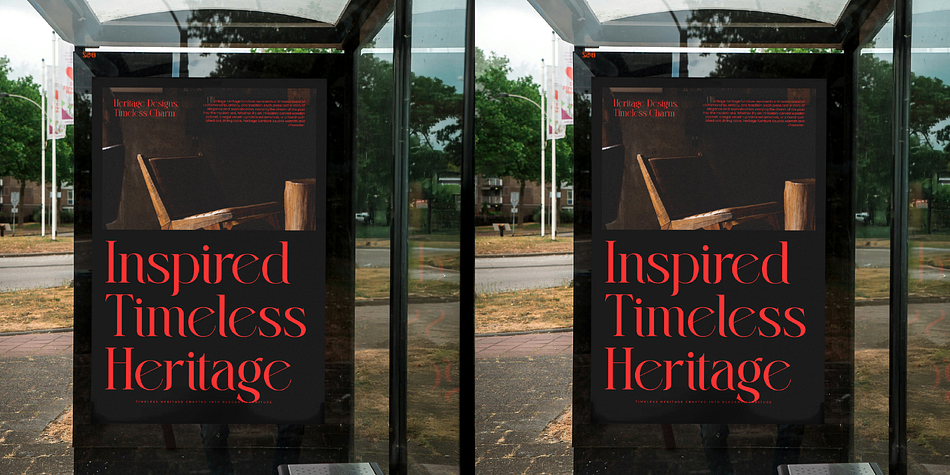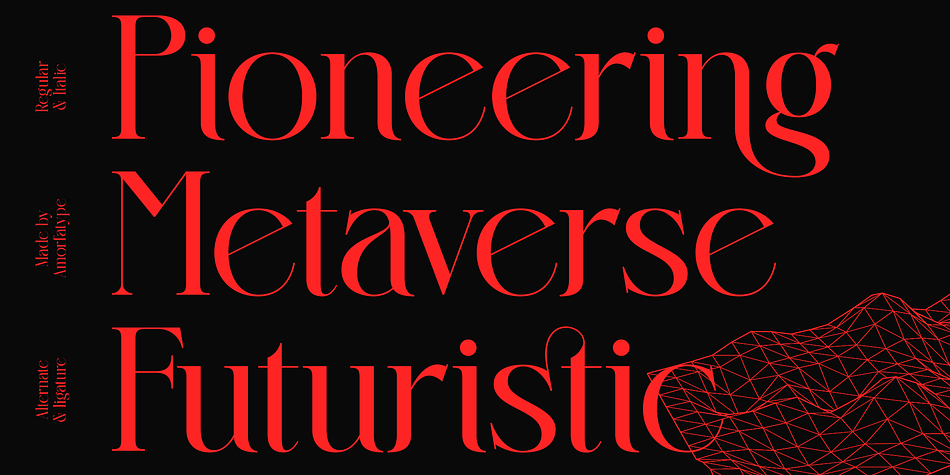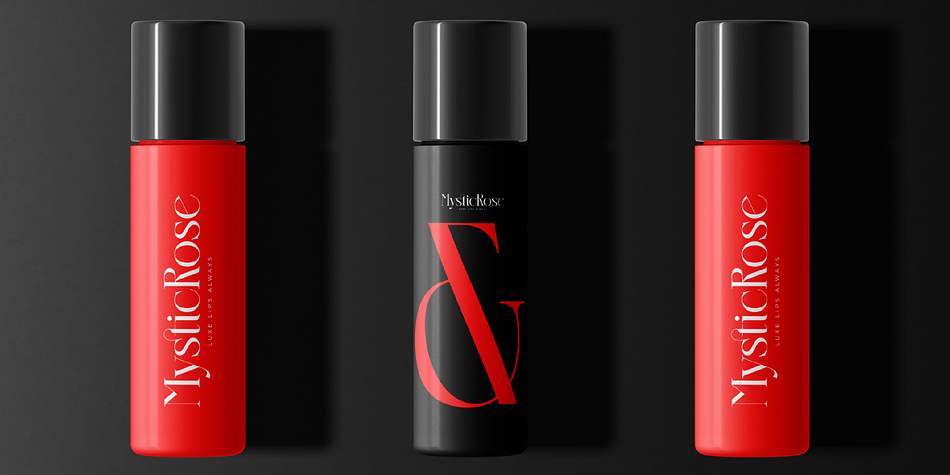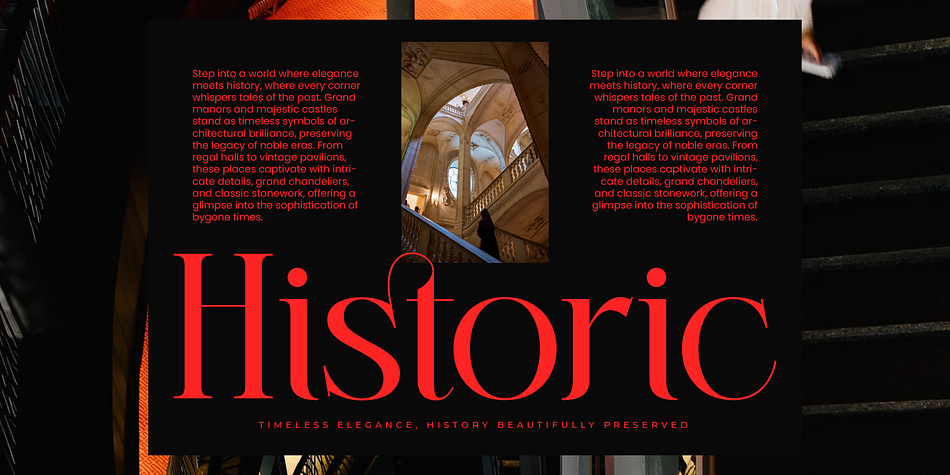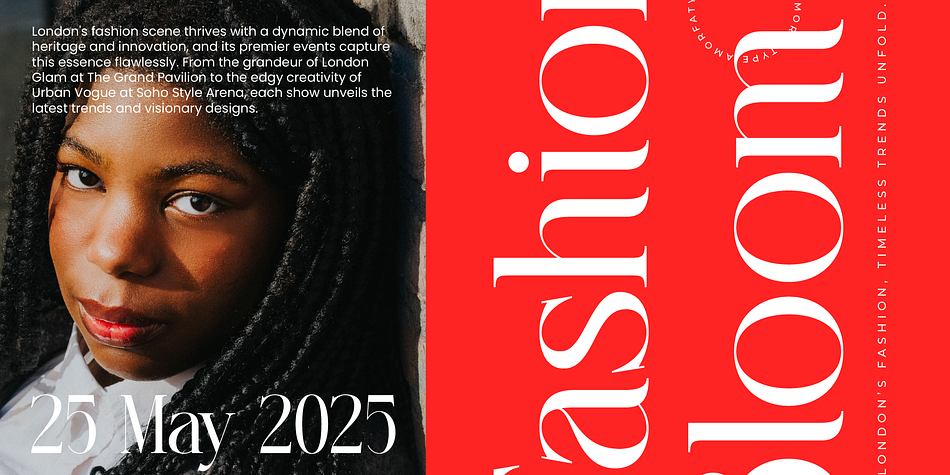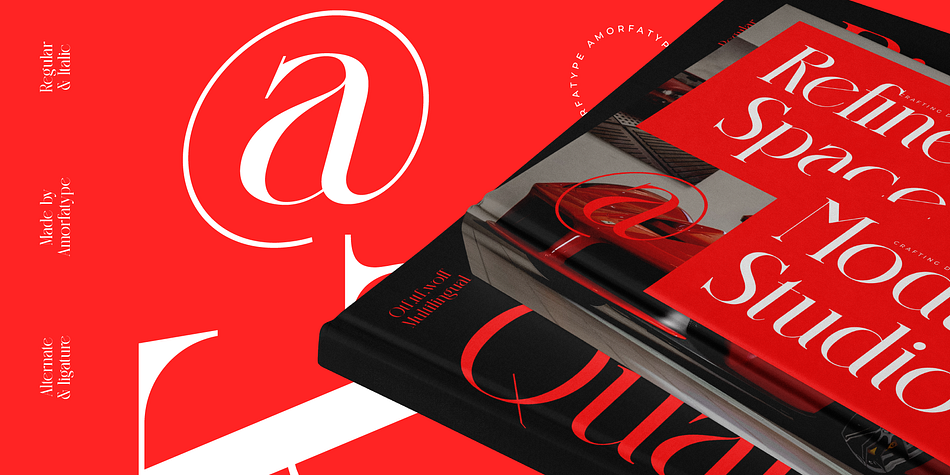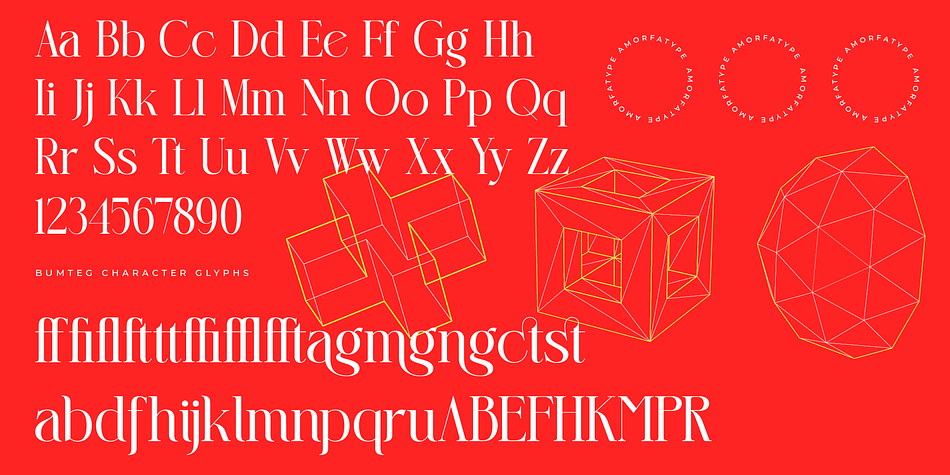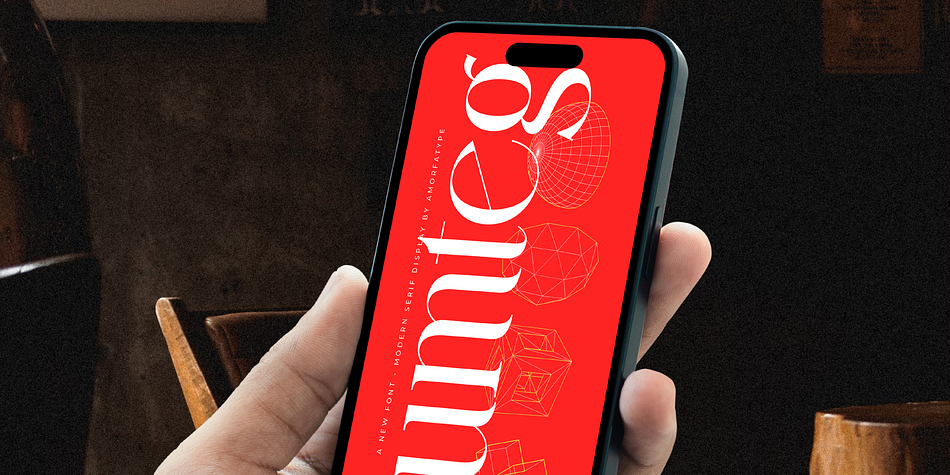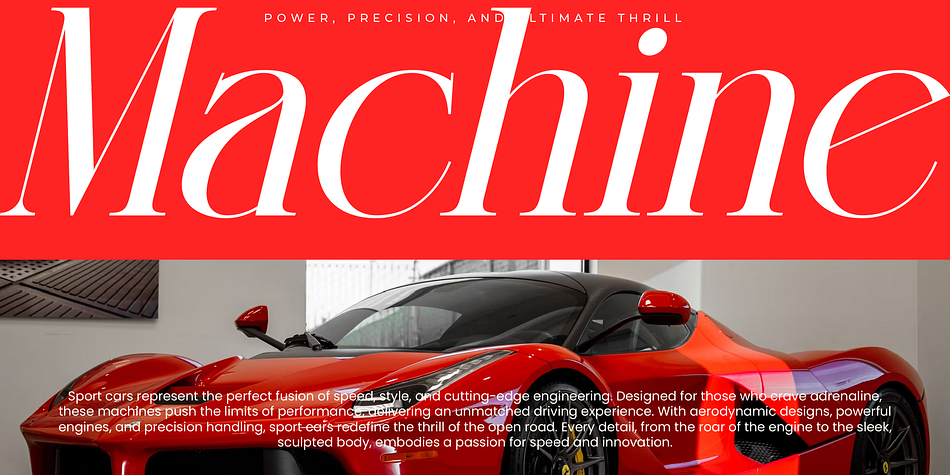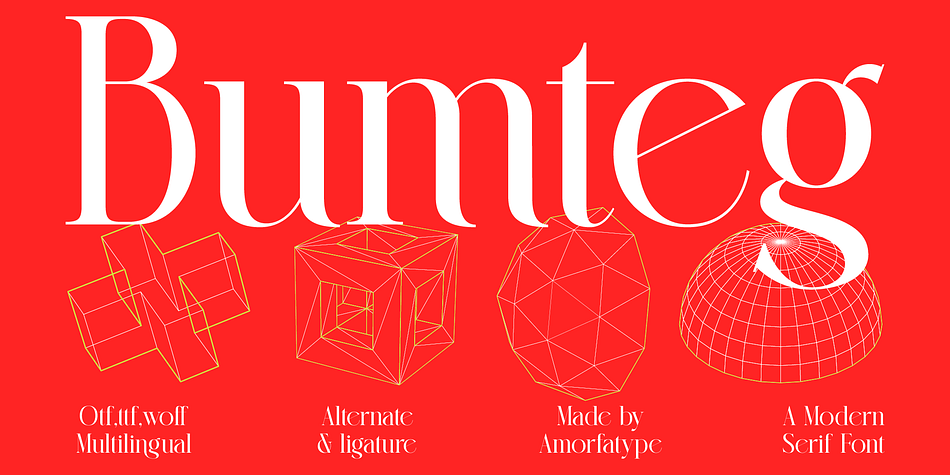
Bumteg
Bumteg is a serif font family. This typeface has two styles and was published by AmorfaType.
Bumteg A Modern Serif Font by Amorfatype
Bumteg A is a bold and modern serif font that effortlessly blends classic elegance with contemporary minimalism. With its sharp geometric serifs and refined, clean lines, this font radiates sophistication and clarity, making it a standout choice for creative projects. The subtle contrasts in stroke weights and intricate design details give Bumteg A a unique and polished look, perfectly balancing tradition and modernity.
Designed for versatility, Bumteg A excels across various applications, from luxury branding and editorial layouts to sleek digital designs. Its bold yet refined character shines in both striking headlines and smaller text, offering a seamless fusion of functionality and aesthetics. Each letterform is meticulously crafted to ensure readability while maintaining a sense of understated luxury.
Ligatures, Alternates & Swashes